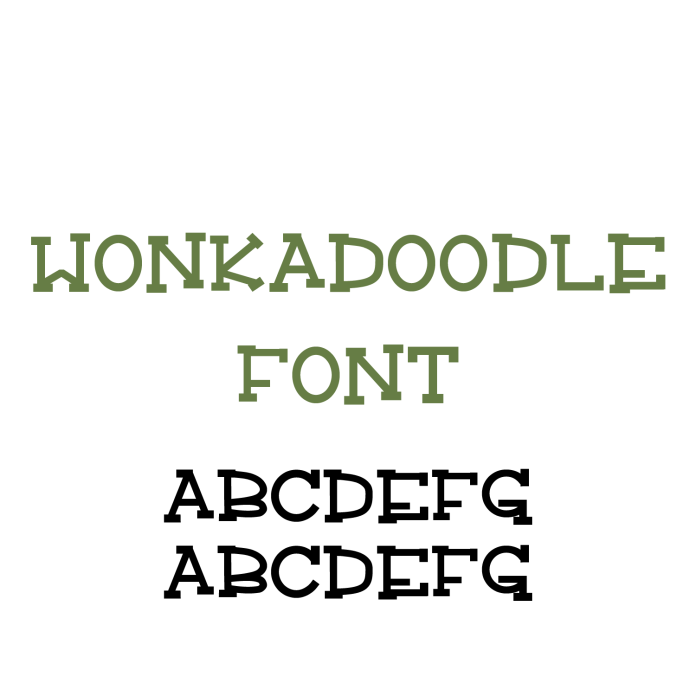
Say hello to Wonkadoodle Font—a whimsical and playful handwritten serif font that adds charm and character to all your crafting projects! With its quirky curves and fun hand-drawn style, Wonkadoodle is perfect for greeting cards, stickers, labels, home decor, and custom gifts. This delightful serif typeface is designed for smooth, clean cuts on your cutting machine, making it ideal for both vinyl projects and printables. Whether you're designing party decorations, quotes, or digital artwork, Wonkadoodle brings joyful energy to every creation. Download Wonkadoodle Font today and let your creativity shine with this cheerful, craft-friendly favorite!